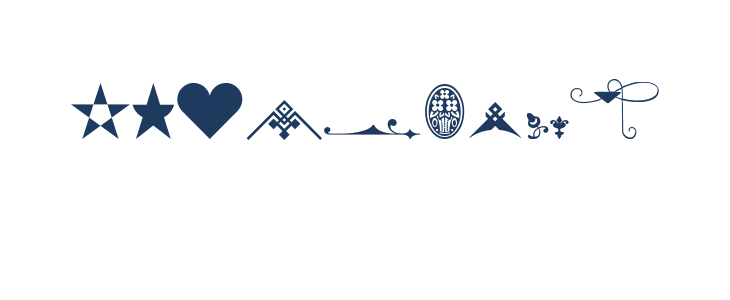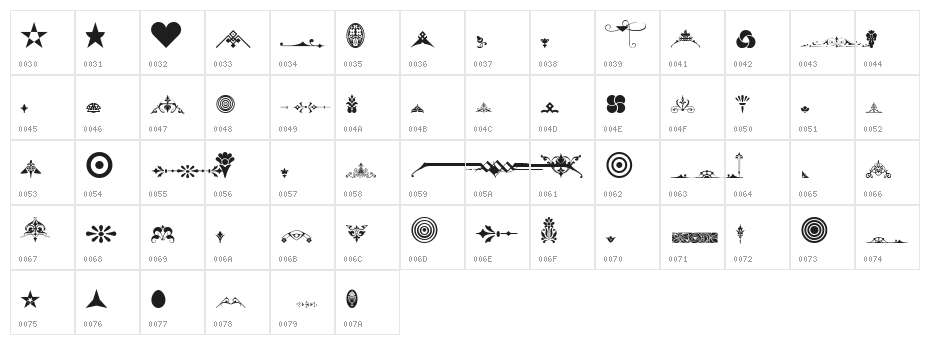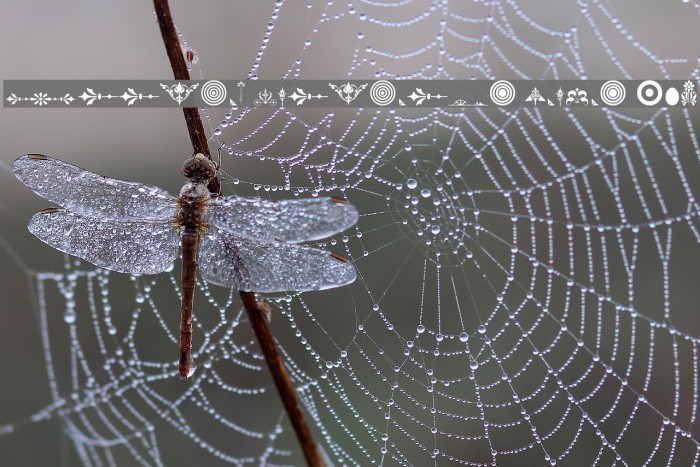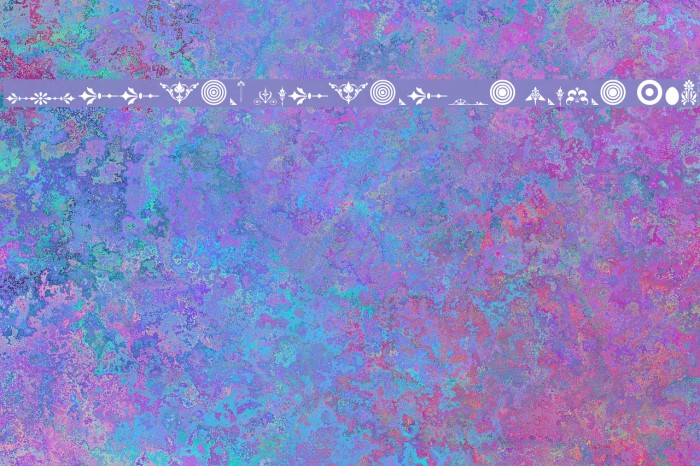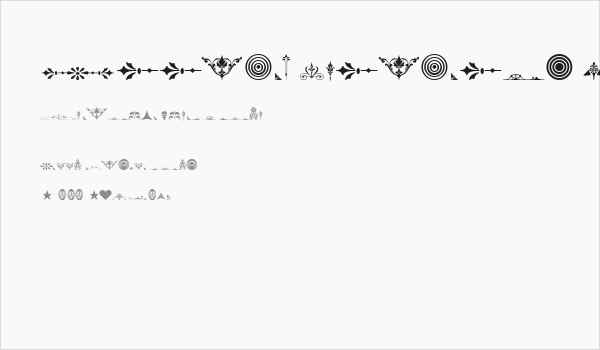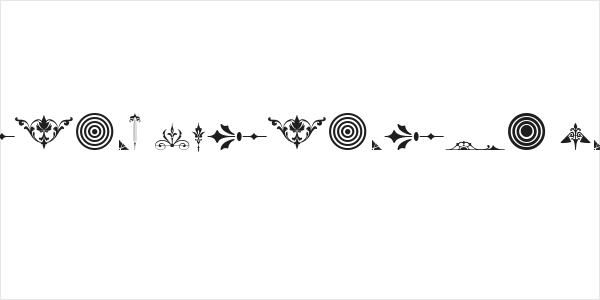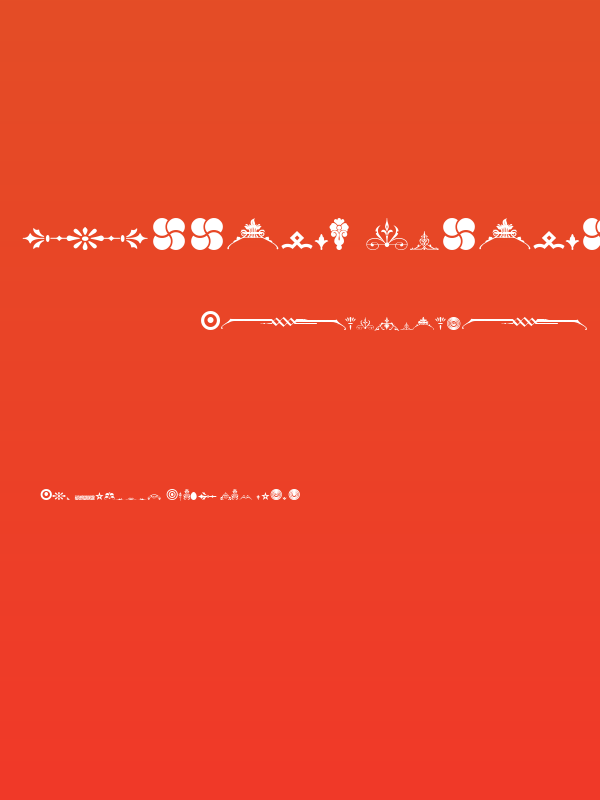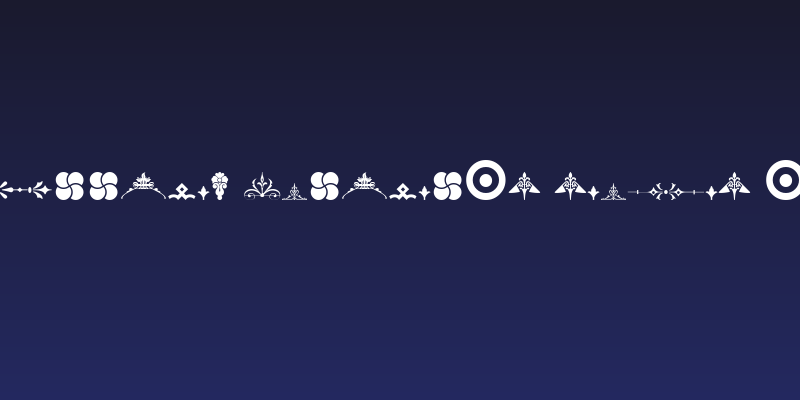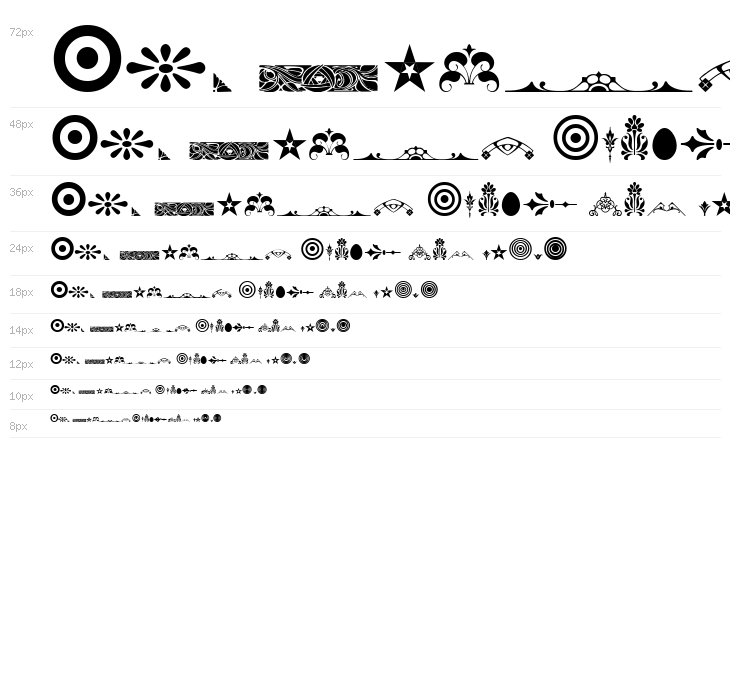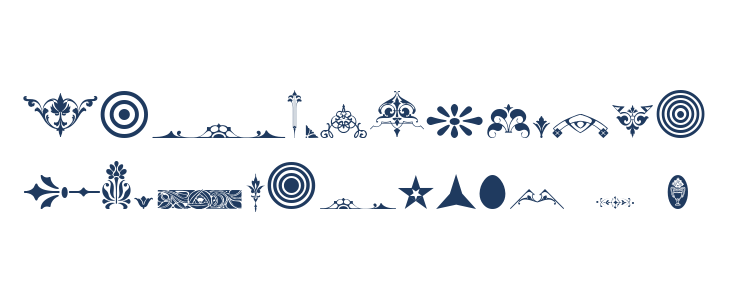
Unnamed Ornaments Series Two Font
Unnamed Ornaments Series Two Description
A collection of decorative ornaments and symbols featuring intricate flourishes, geometric shapes, stars, hearts, and floral motifs. The designs are highly stylized, with both symmetrical and asymmetrical elements, and a mix of bold and delicate line work.
| Overall Style | Decorative, Vintage |
| Use Case | Borders, dividers, embellishments, graphic accents |
| Proposed Projects | Invitations, certificates, book covers, decorative borders, vintage-style branding, scrapbooking, and graphic design accents. |